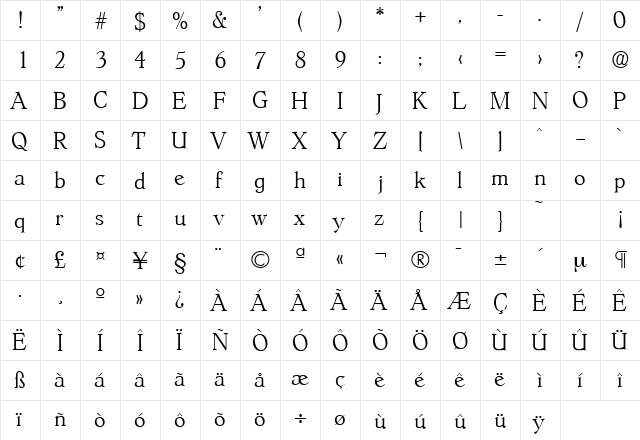
Hoboken-Serial-ExtraLight Regular
Design Context for Hoboken-Serial-ExtraLight Typeface
Hoboken-Serial-ExtraLight is a composed and adaptable typeface that performs quietly and consistently across a wide range of design contexts. Its slender proportions lend an understated elegance to any composition.